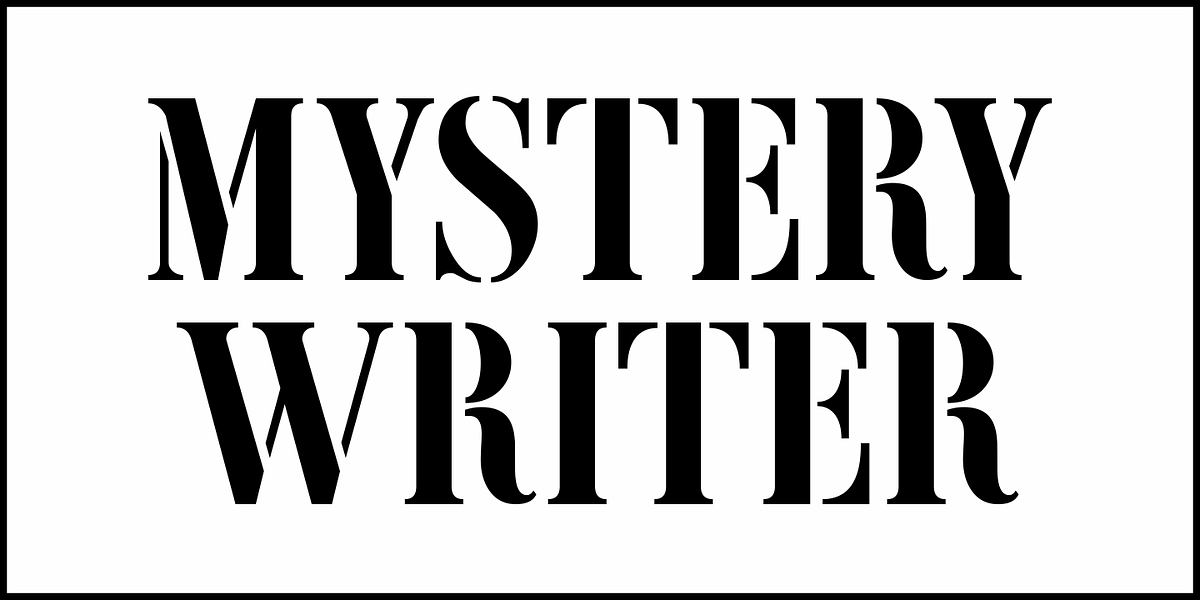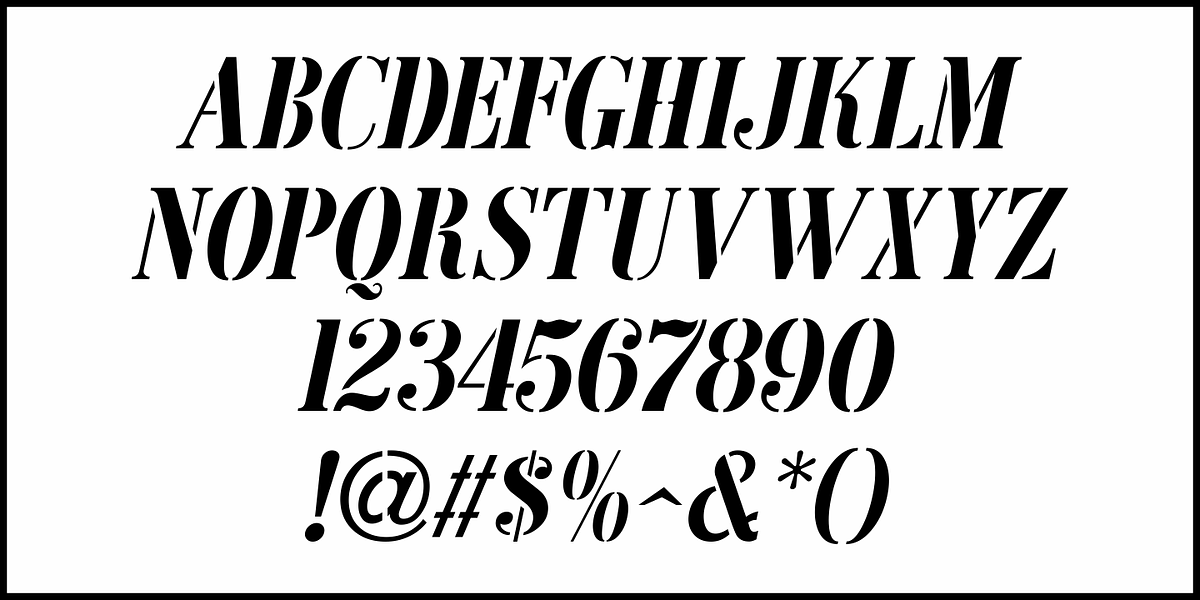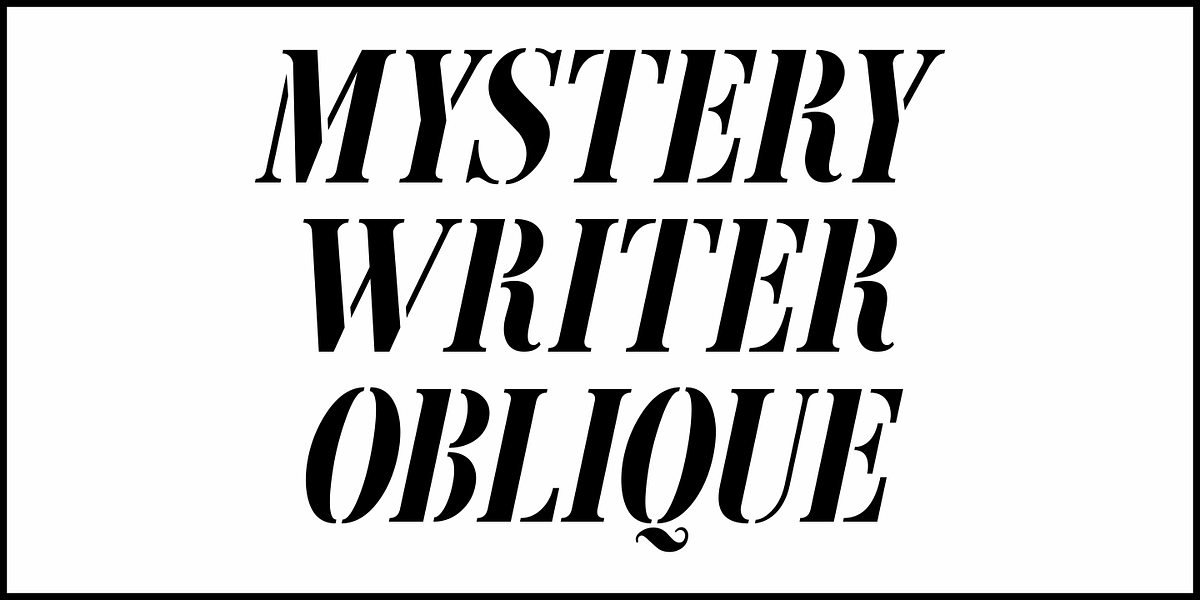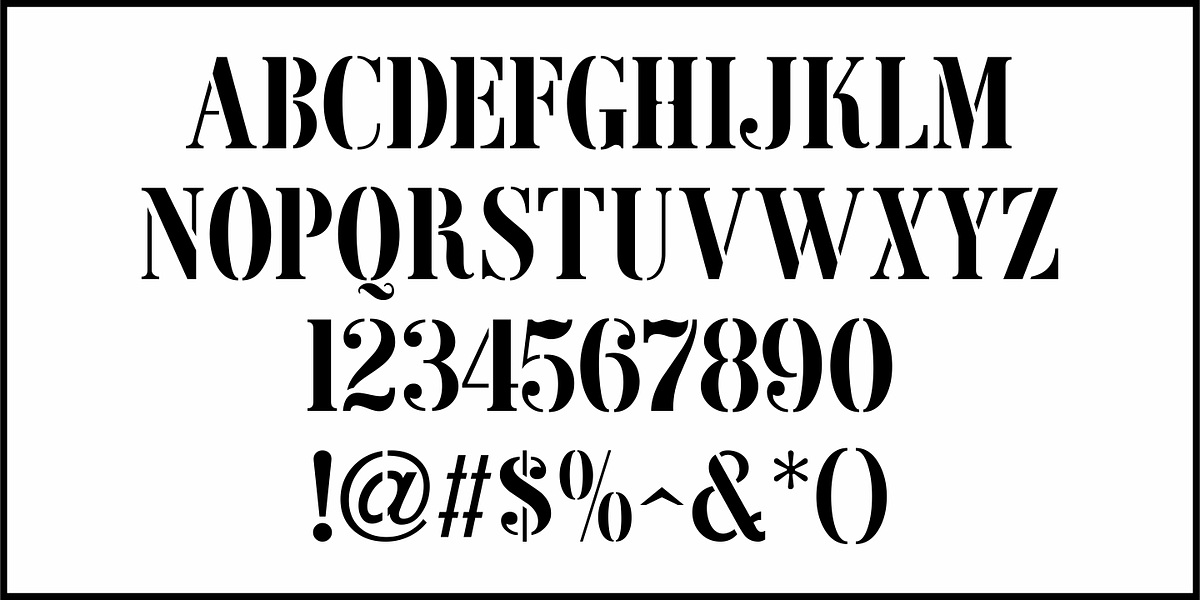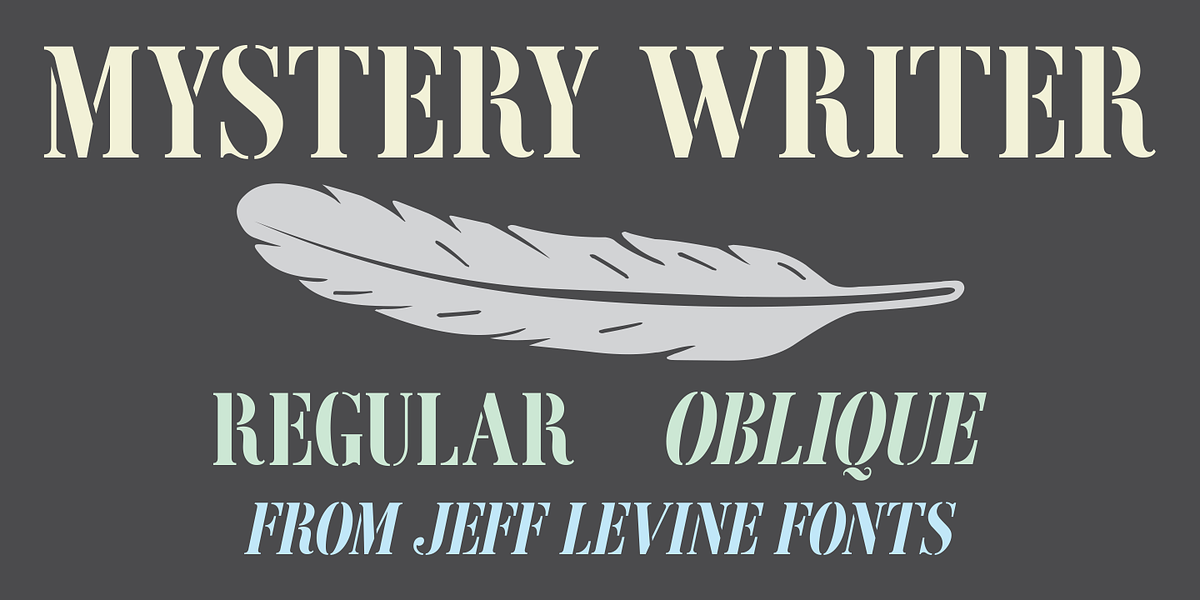
Mystery Writer JNL
Mystery Writer JNL is based on the hand lettered title from the cover of a 1947 issue of “Ellery Queen’s Mystery Magazine”, and is available in both regular and oblique versions.